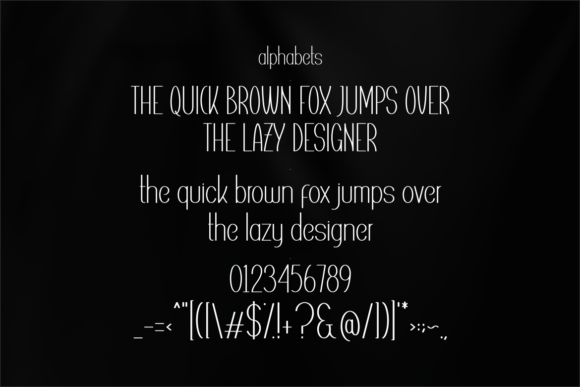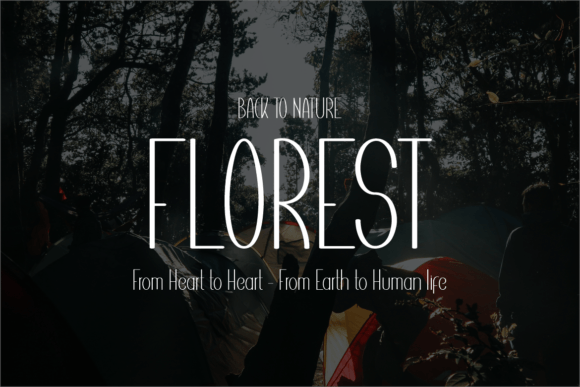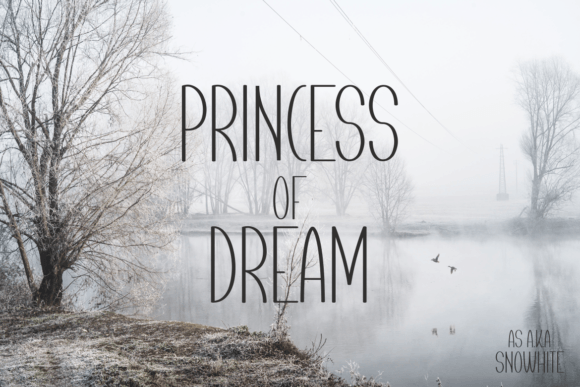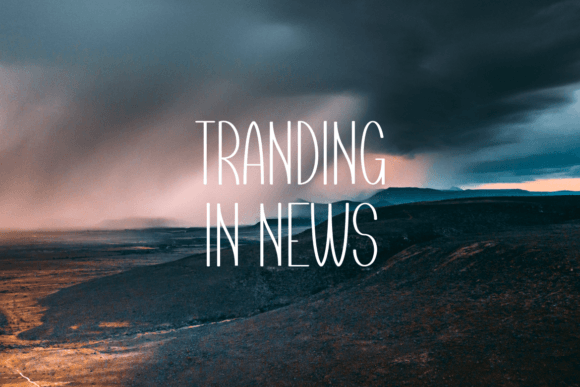
Introduction to Jestran Font
Jestran is an elegant, classy, and modern sans-serif font.
It’s a great font for fashion, apparel projects, signature, album covers, logos, branding, magazine, social media, & advertisements, but also works great for other projects .